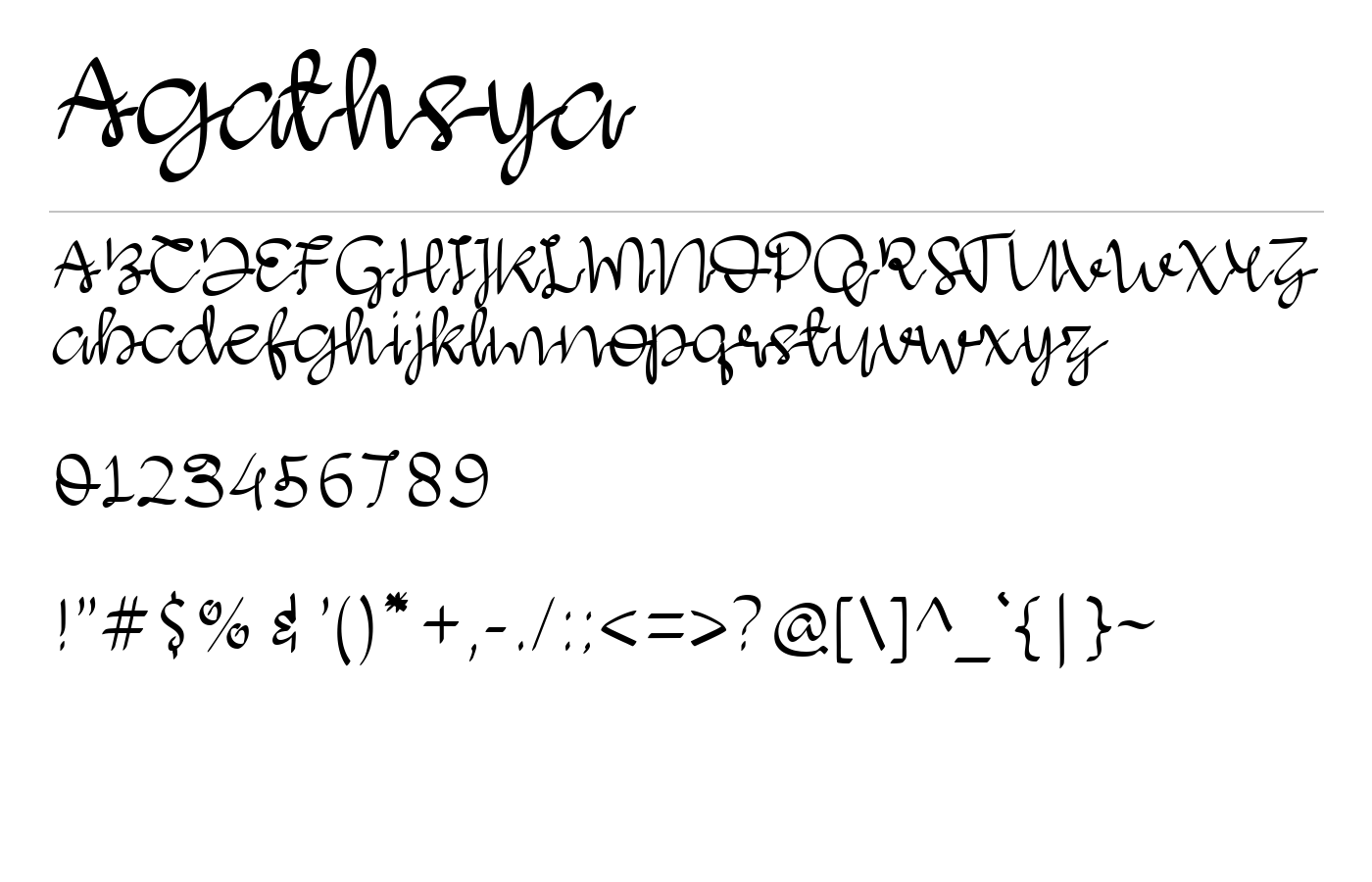
Agathsya is a playful and lively handwritten script font featuring thin, flowing strokes with a casual and artistic touch. Its unique letterforms and irregular shapes give it a charming, personal feel, making it ideal for creative projects, invitations, or branding that seeks a friendly and informal vibe. This font works best in headlines, logos, or designs needing a distinctive hand-crafted appearance.
Agathsya Font